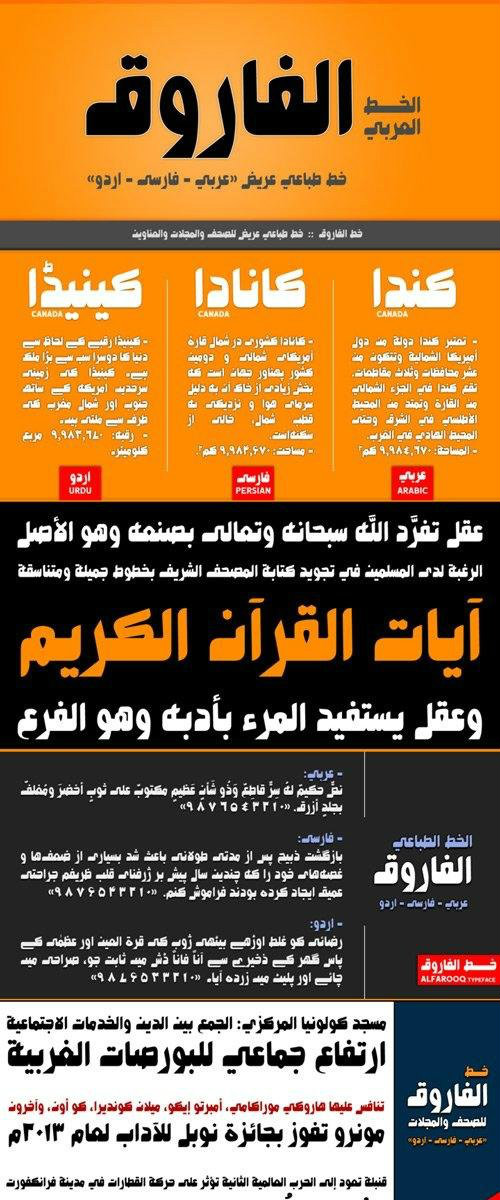
Alfarooq Arabic Font
Alfarooq is the most widely known epithet for the Islamic figure Umar ibn al-Khattab (c. 586 – 644) who was a leading companion and an adviser to the Islamic prophet Muhammad (peace be upon him) who later became the second Muslim Caliph after Muhammad’s death (pbuh) in 632. Muslims widely know Umar ibn Al-Khattab (may Allah be pleased with him) as Alfarooq (i.e., he who knows and distinguishes between truth and falsehood).
“Alfarooq” is a unique, wide, and headline Arabic display typeface. The main trait of this typeface is the novel design of its letters’ tails and its dots which renders it as one of the modern stylish typefaces used for headlines and titles. This can be noticed in different letters such as Ain, Ghain, Jeem, Khah, Seen, Sheen, and others. In addition, Alfarooq font has an Arabic character set which supports Arabic, Persian, and Urdu letters and numerals with a limited range of specific Arabic ligatures. This font comes in just one ultra-bold weight with nearly 400 distinctive glyphs.